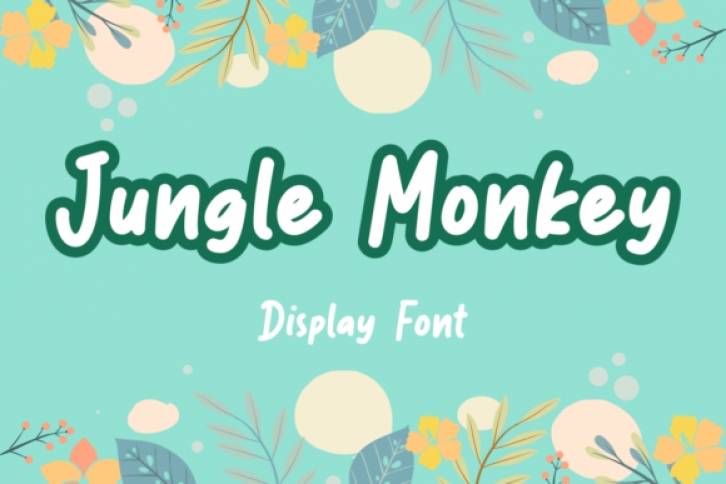
Jungle Monkey is a sweet and friendly display font. Its natural and unique style makes it incredibly fitting to a large pool of designs. The only limit is your imagination!